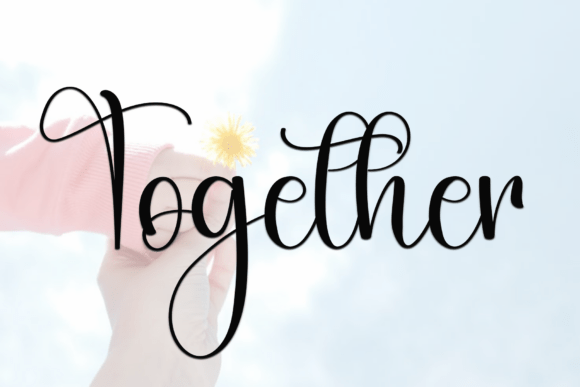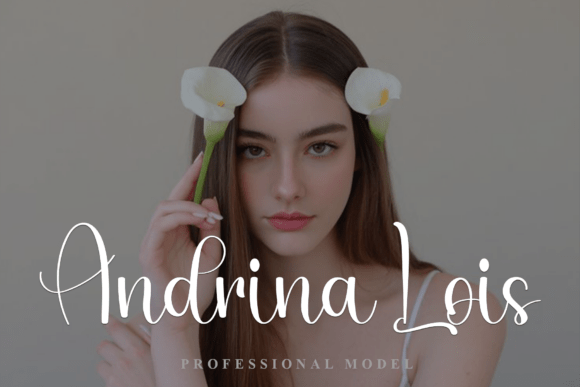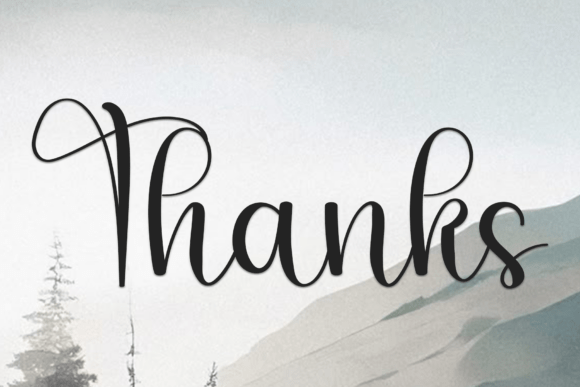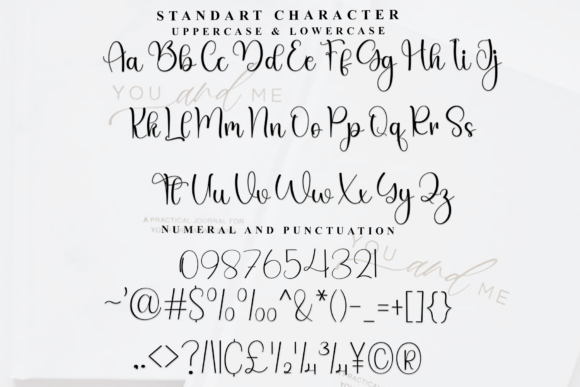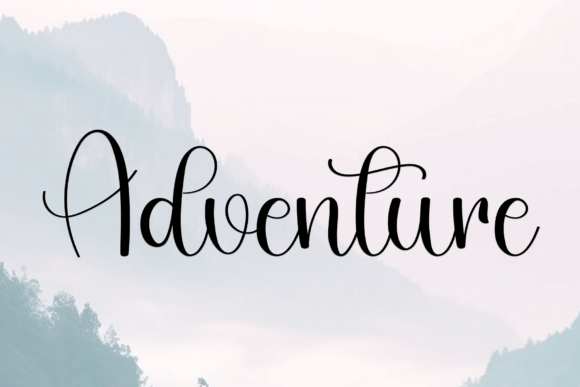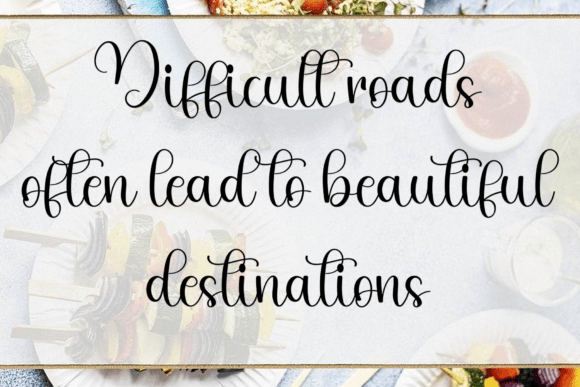
Blooming Something Font: Add a Touch of Holiday Magic to Your Designs
The holiday season is upon us, and what better way to get into the spirit than with a festive and merry typeface? Look no further than the Blooming Something Font, a decorative font that captures the essence of the holiday season with its whimsical flair and enchanting charm. In this article, we’ll dive into the world of Blooming Something Font and explore how it can elevate your designs, from greeting cards to holiday-themed projects.
The Magic of Blooming Something Font
Blooming Something Font is a beautifully crafted typeface that embodies the joy and festivity of the holiday season. Its decorative elements, including intricate swirls and flourishes, add a touch of magic to your words, making them perfect for a variety of applications. Whether you’re designing greeting cards, gift tags, or holiday-themed projects, this font brings a cheerful and nostalgic ambiance to your typography.
Blooming Something Font is a dream come true for designers and crafters looking to add a personal touch to their projects. With its whimsical and festive design, this font is perfect for creating:
- Greeting cards: Impress your loved ones with beautifully designed holiday cards that feature the Blooming Something Font.
- Gift tags: Add a personal touch to your gifts with custom gift tags that showcase the font’s decorative elements.
- Holiday-themed projects: From invitations to party decorations, this font is perfect for any holiday-themed project.
Why Choose Blooming Something Font?
With so many fonts available, why choose Blooming Something Font? Here are just a few reasons why this font stands out:
- Unique and festive design: This font is unlike any other, with its whimsical and decorative elements that capture the spirit of the holiday season.
- Versatility: This font is perfect for a variety of applications, from greeting cards to holiday-themed projects.
Get Ready to Shine with Blooming Something Font